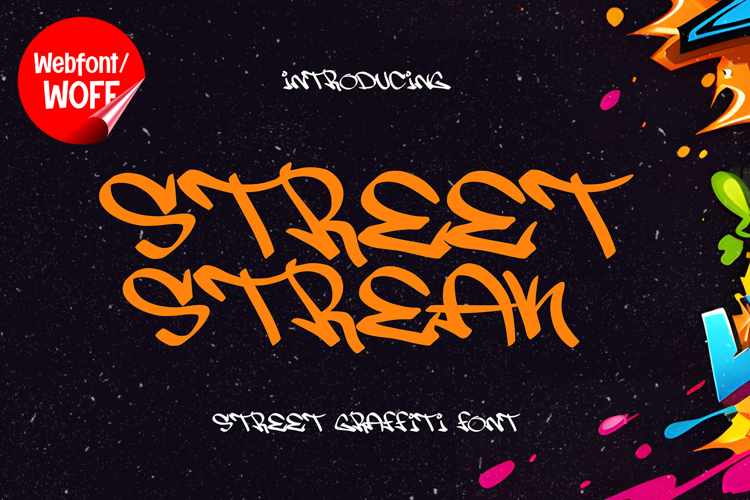
Street Streak | Monoline Graffiti Webfont for Urban Creative
Street Streak is a monoline graffiti webfont designed to bring authentic street culture and modern urban aesthetics into contemporary website design. Inspired by freestyle graffiti tags, marker lettering, and underground street art, this font features smooth monoline strokes and expressive movement that create a bold and energetic visual identity. It is an excellent choice for projects that aim to deliver edgy urban typography with a clean and stylish appearance.
Street Streak includes a complete set of uppercase characters designed with monoline graffiti aesthetics. The letterforms feature flowing handwritten movement and balanced line consistency, creating a sleek and expressive appearance inspired by street tagging culture. These characteristics make it ideal for headlines, banners, hero sections, promotional graphics, and featured content where strong urban visuals are needed.
In addition to letters, the font includes numbers and punctuation, allowing flexible usage across various parts of a website. It works well for streetwear branding, music platforms, gaming websites, creative portfolios, social media graphics, and youth-oriented digital campaigns. Each character maintains a consistent monoline graffiti style, ensuring a cohesive and unified visual identity throughout the design.
With multilingual support, Street Streak includes a wide range of accented characters, making it suitable for international websites and global audiences. This ensures content remains clear and visually consistent across different languages while preserving the expressive and modern graffiti aesthetic.
The monoline graffiti style of Street Streak makes it especially suitable for urban-themed websites, hip hop branding, entertainment projects, esports graphics, and creative digital campaigns. Its flowing lines and energetic structure create a modern street-art atmosphere that helps websites stand out in visually competitive environments. The clean monoline construction balances the expressive graffiti influence, creating a versatile and visually appealing display style.
Despite its decorative and expressive appearance, Street Streak is designed with readability in mind. The spacing and proportions are carefully balanced to ensure clarity, particularly in display sizes. This allows designers to use the font effectively for impactful headings and short content without sacrificing usability.
Street Streak is a webfont that combines monoline typography with graffiti-inspired aesthetics and modern digital performance. Its smooth strokes, urban character, and dynamic movement create a distinctive typographic presence that enhances website design. For projects that require a stylish, edgy, and visually engaging graffiti font, Street Streak offers a versatile and creative solution.